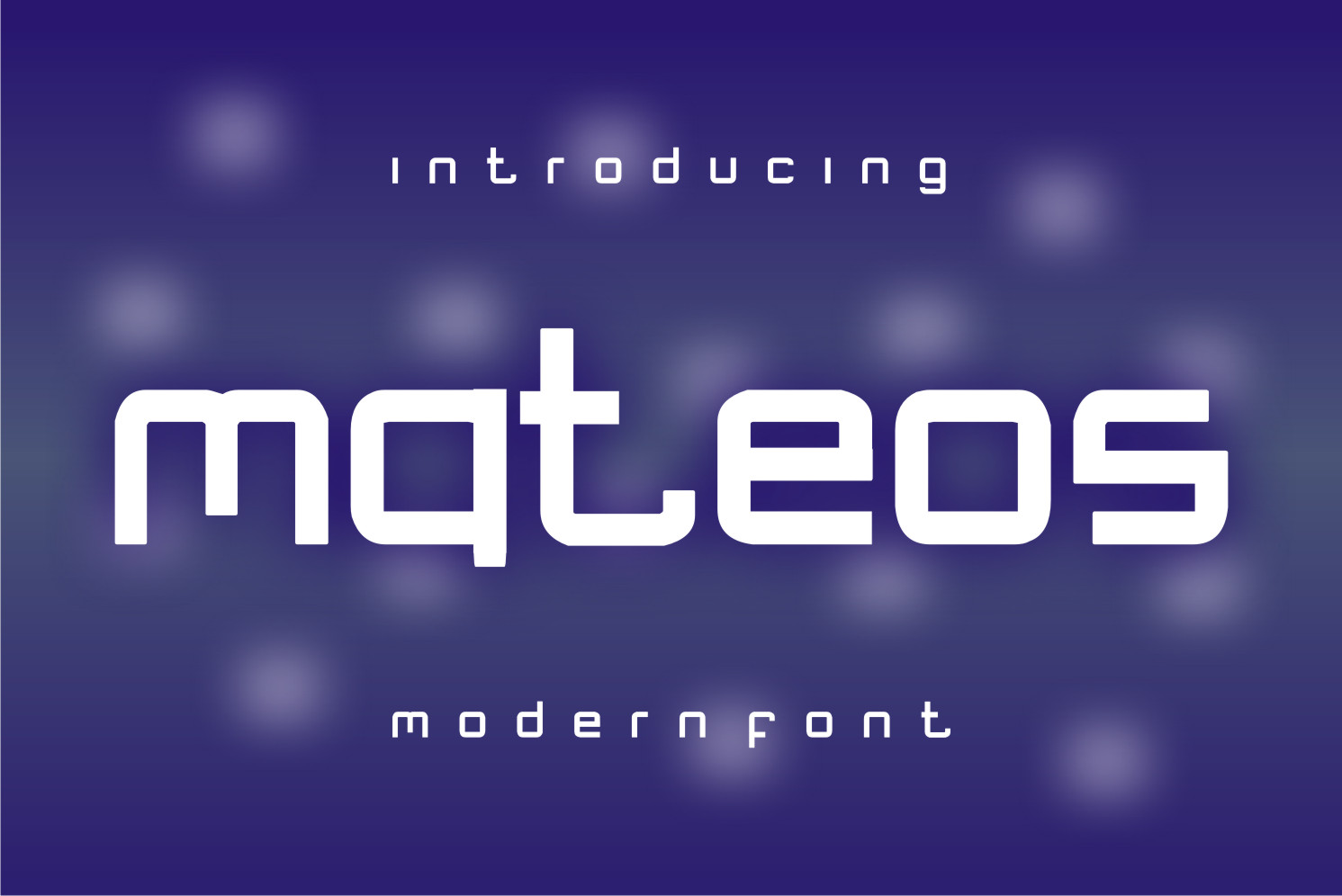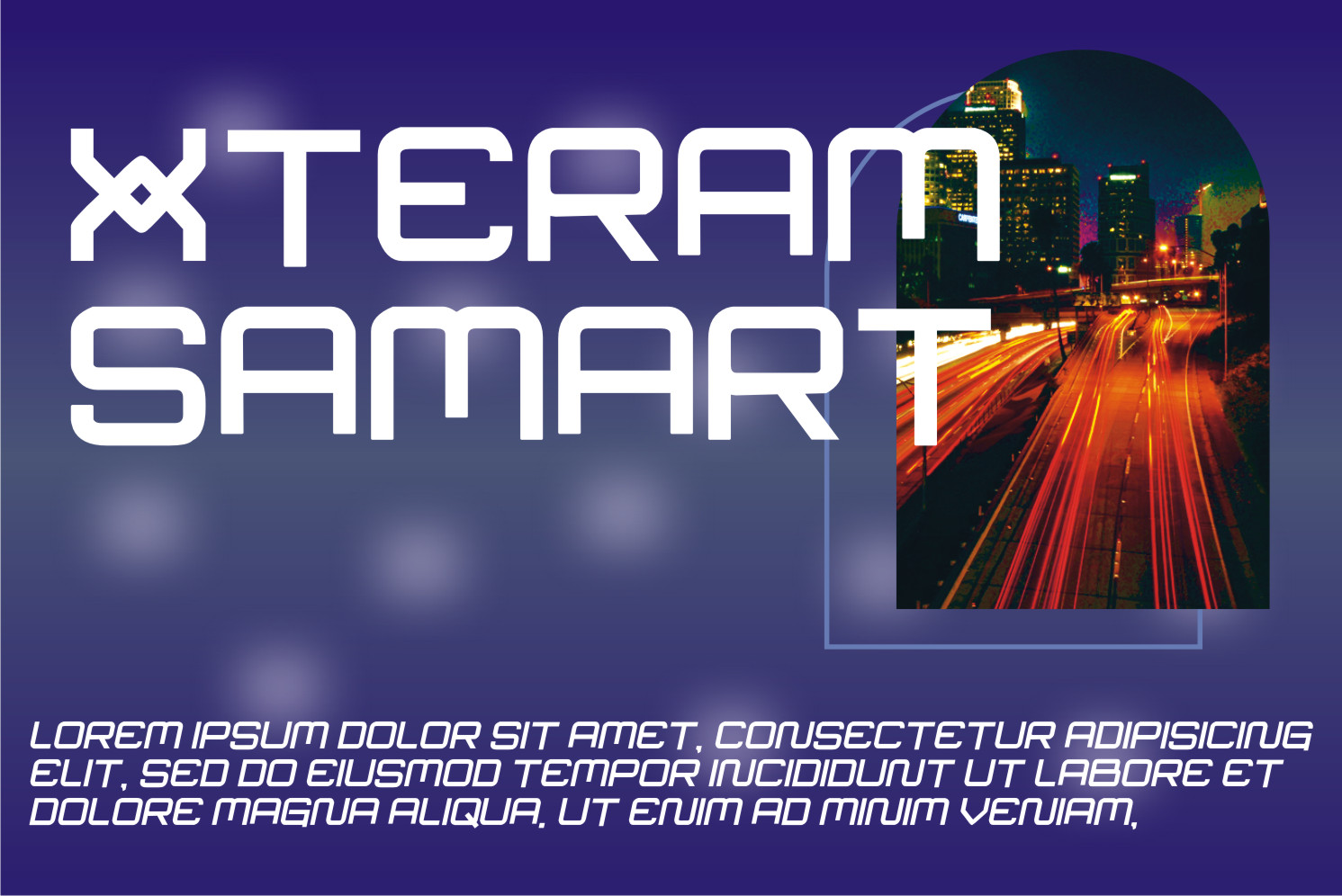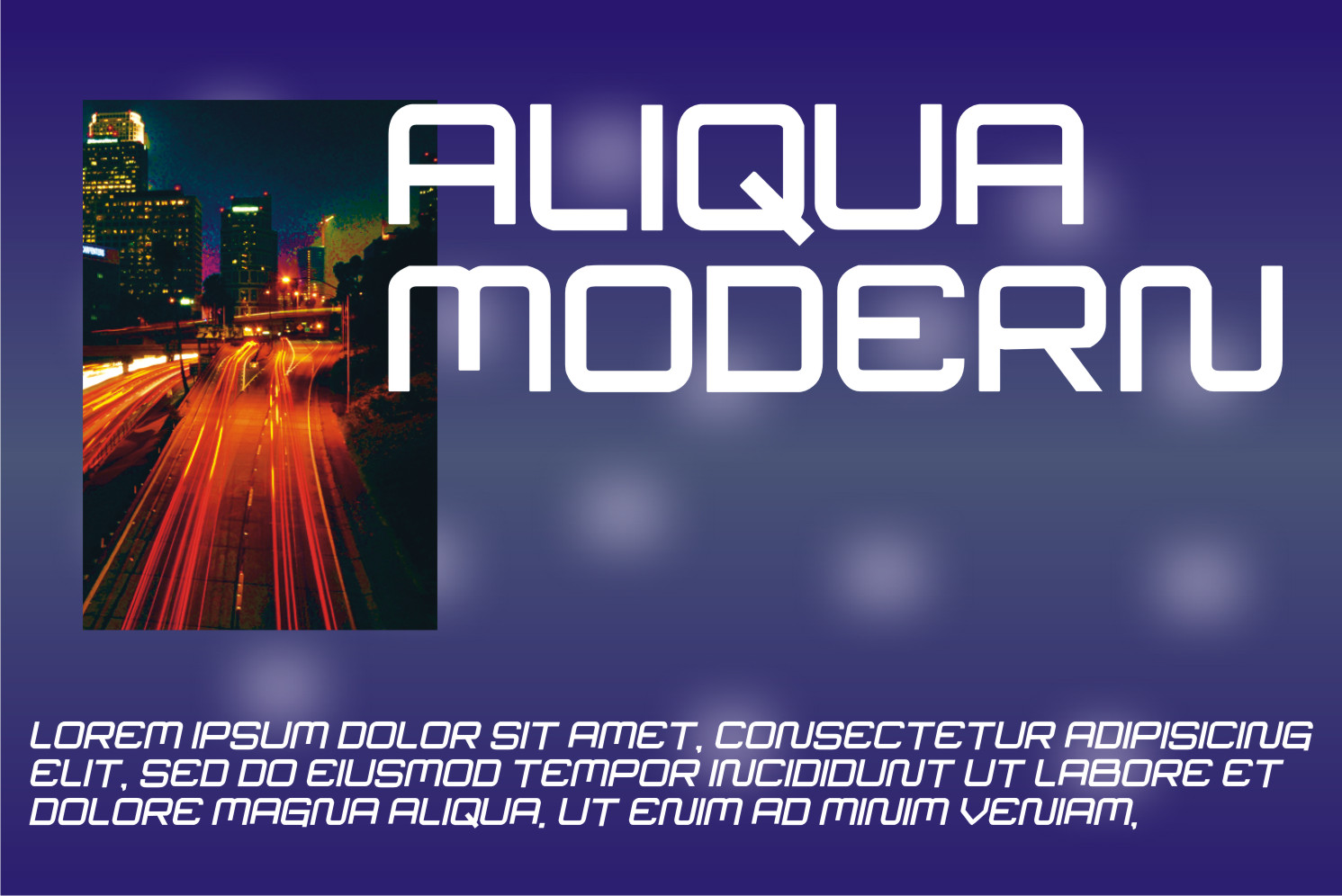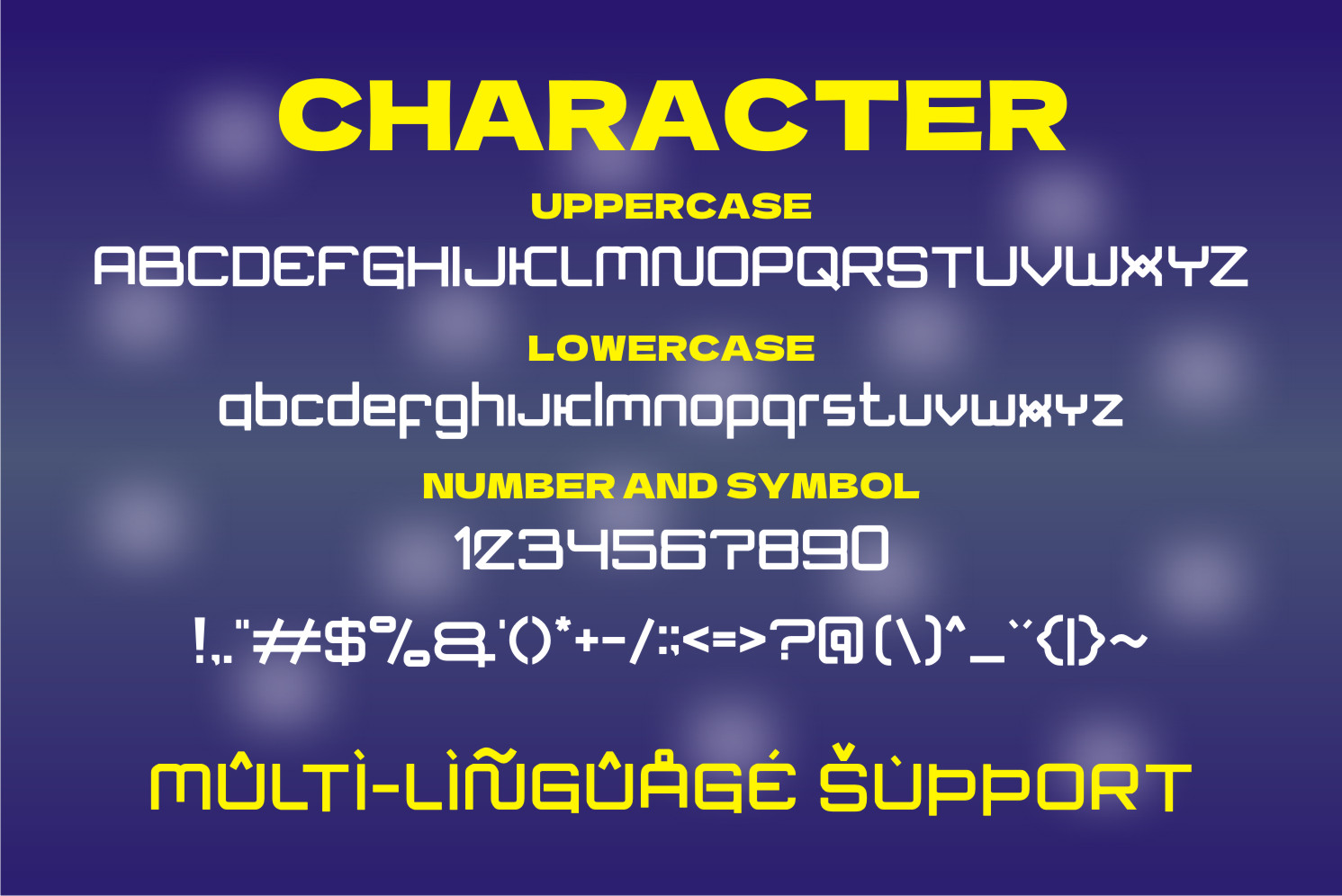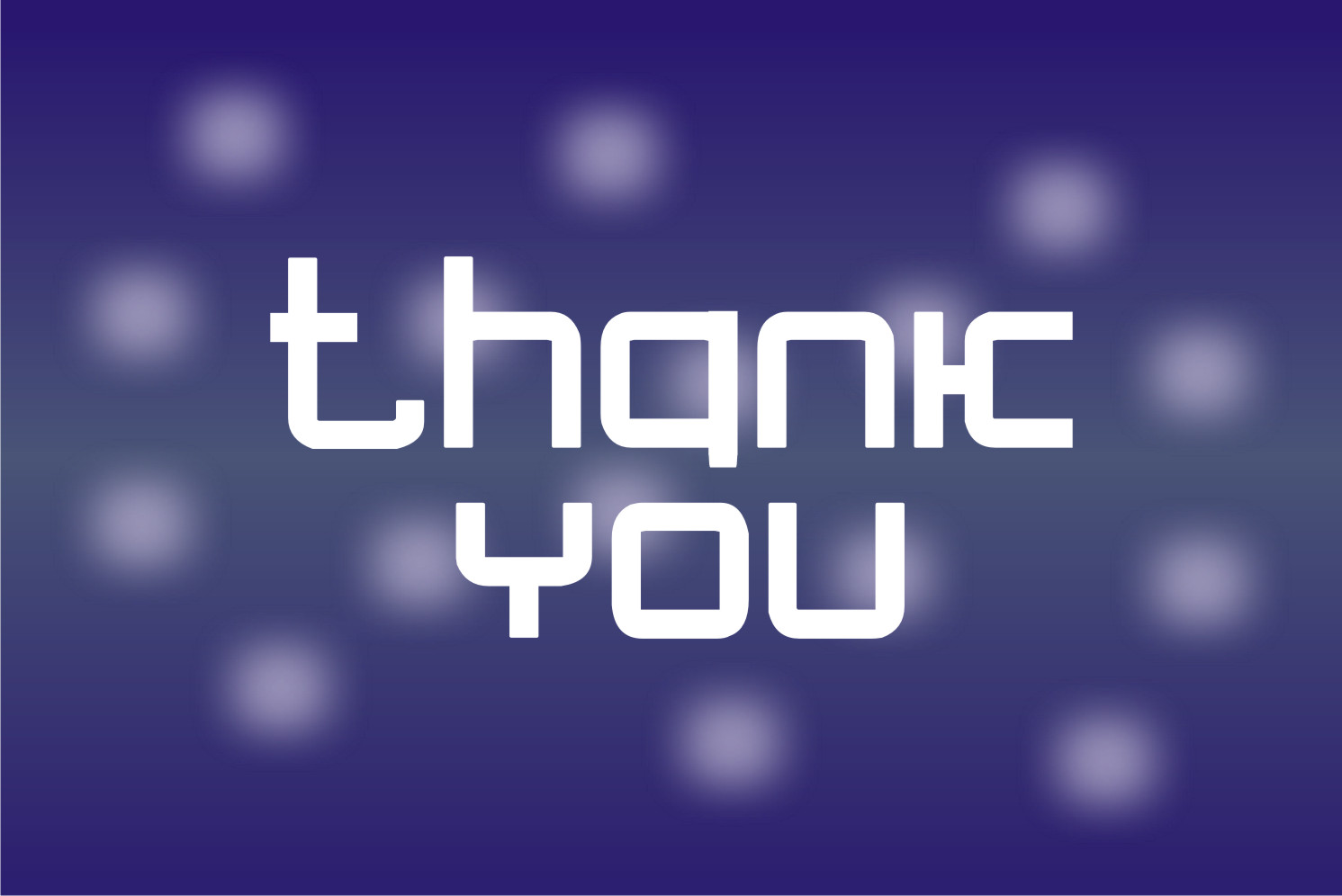
Mateos Font
Mateos Display Font
It’s a cool and modern lettered display font. No matter the topic, this font will be an incredible asset to your fonts’ library, as it has the potential to elevate any creation.